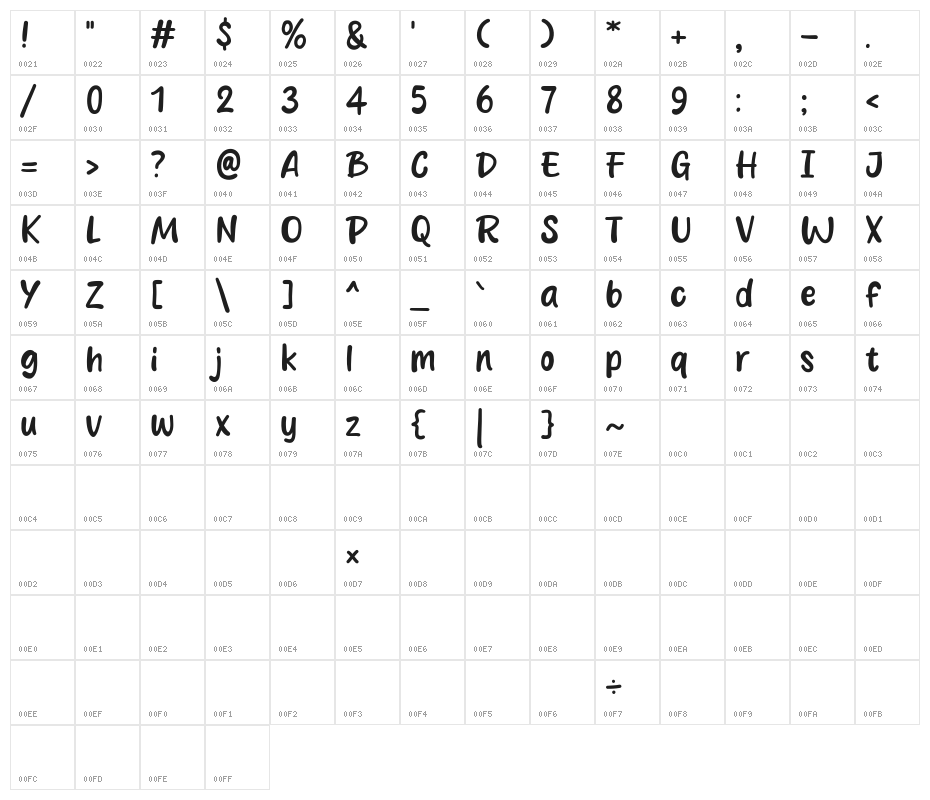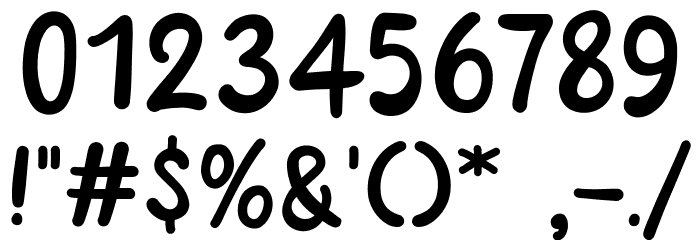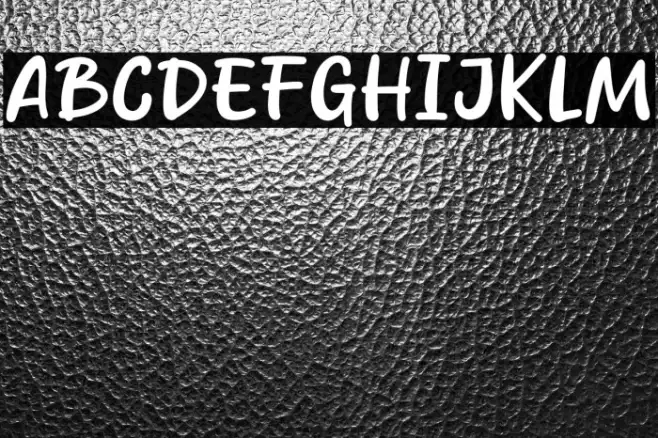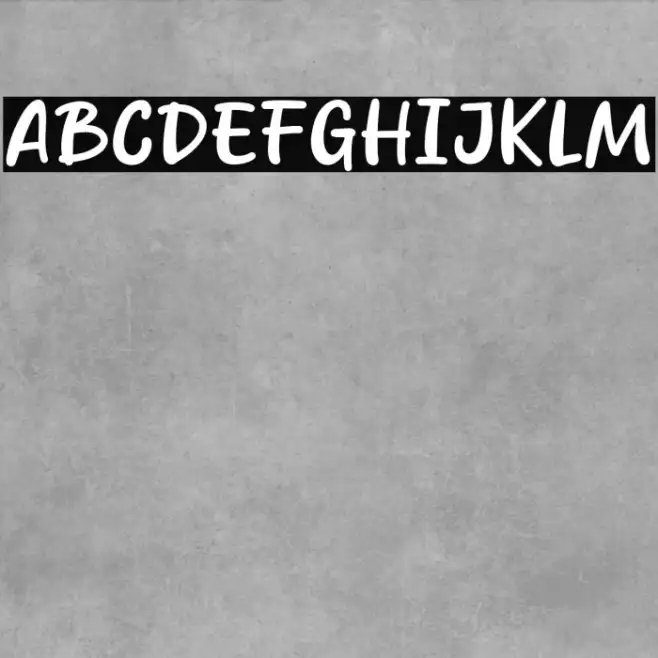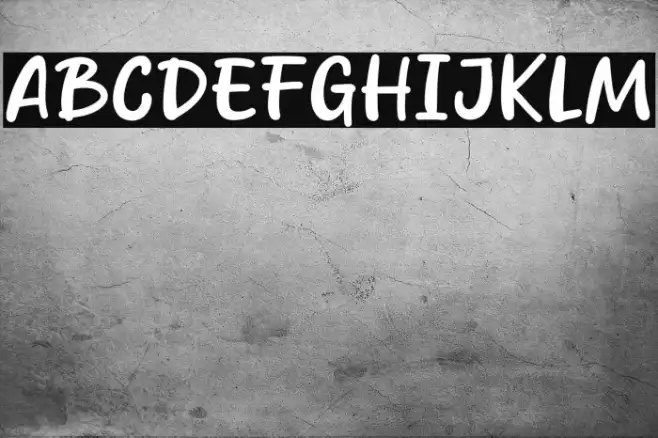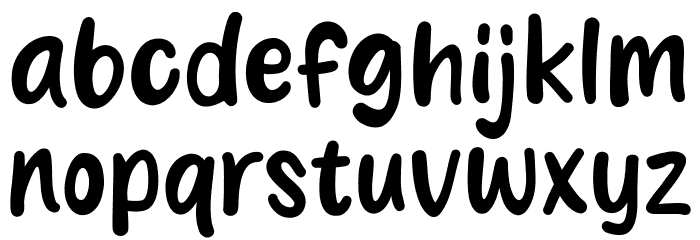
Duck spicy Font
This font features a playful and casual handwritten style, characterized by its rounded and slightly irregular letterforms. The strokes are bold and consistent, giving it a friendly and approachable appearance. The uppercase and lowercase letters maintain a uniform height, enhancing readability while retaining a whimsical charm. Numbers and special characters are designed to match the overall style, making it versatile for various uses. The font's informal nature makes it suitable for projects that aim to convey a sense of fun and creativity.
| Proposed Projects | Ideal for children's books, greeting cards, playful branding, and casual social media graphics. |